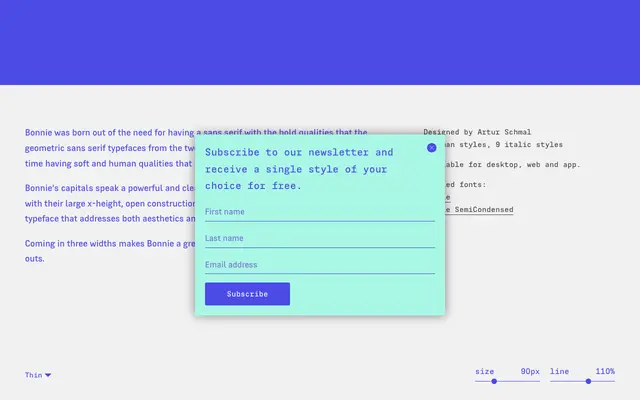
Bonnie Condensed
Original Type · Artur Schmal
A condensed geometric sans with humanist softening, offering nine weights and matching italics for space-efficient typesetting.
The Condensed cut of Artur Schmal's Bonnie family carries the same blend of geometric structure and rounded, open detailing as its wider siblings. Nine weights from UltraThin to Black, each with a matching italic, give the family considerable range across display and text sizes. Its large x-height and open construction keep it legible at smaller sizes, making it a practical choice for editorial and layout work where horizontal space is tight.
Bonnie is rooted in twentieth-century geometric sans traditions but softened with humanist details and a large x-height; the Condensed cut retains these qualities in a narrower width.